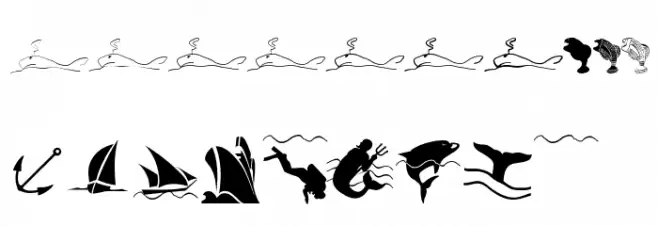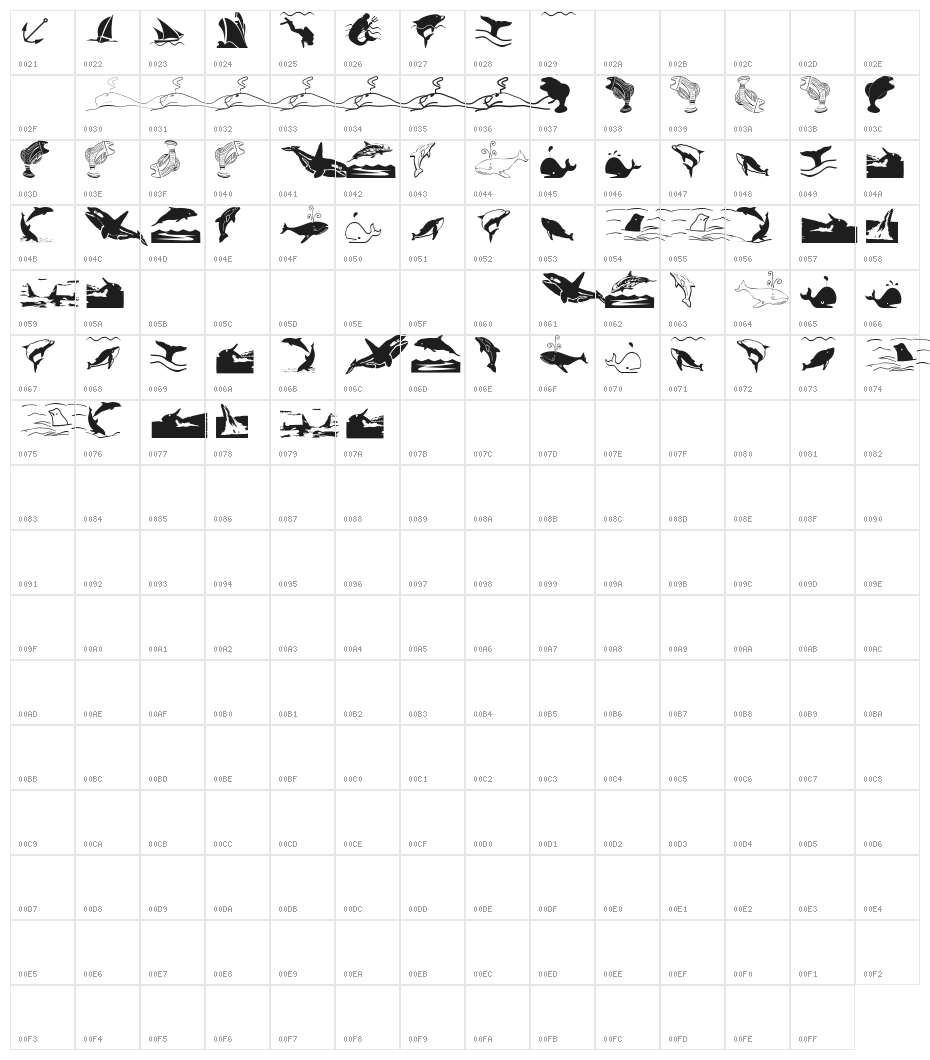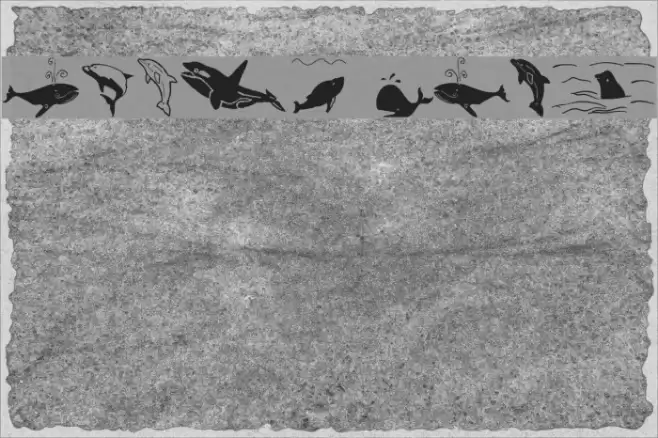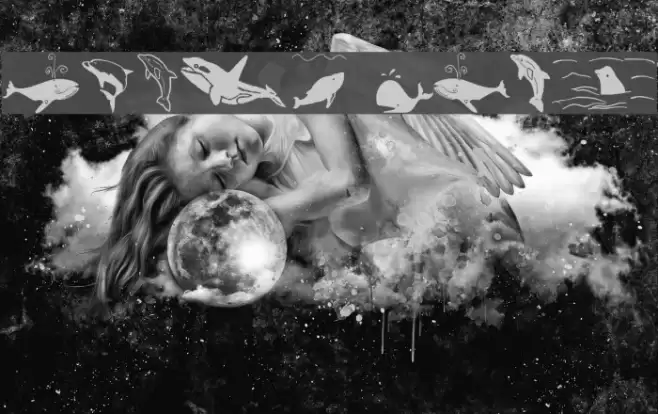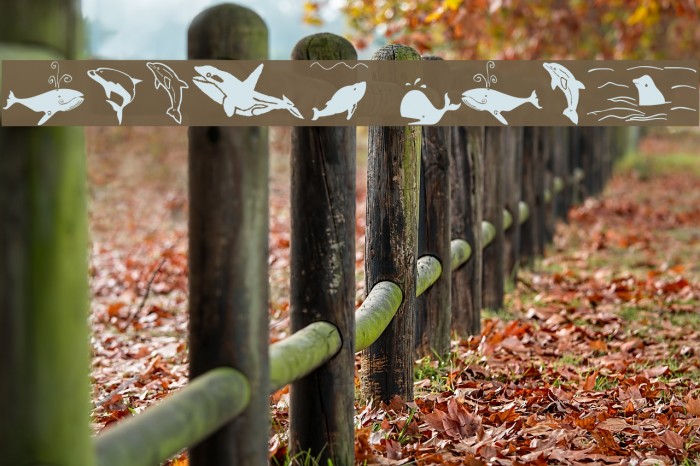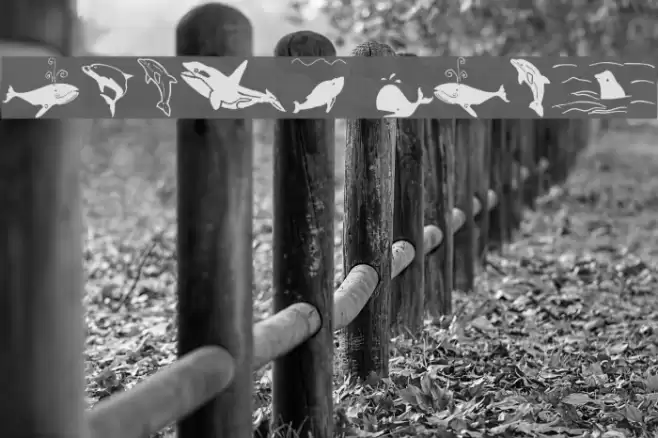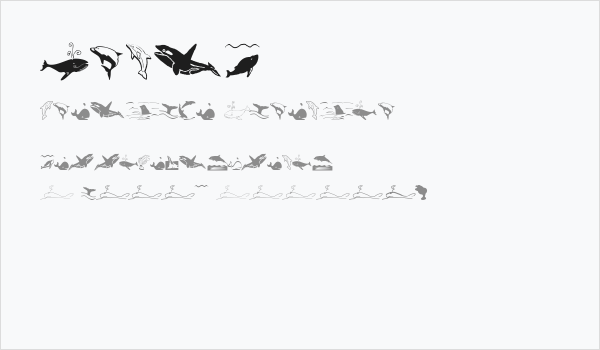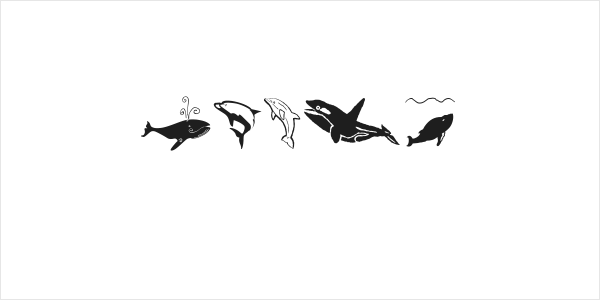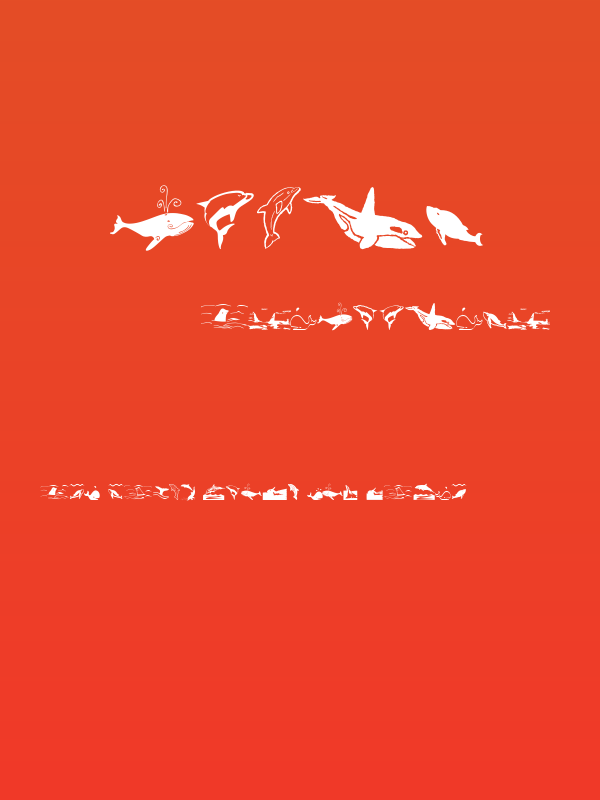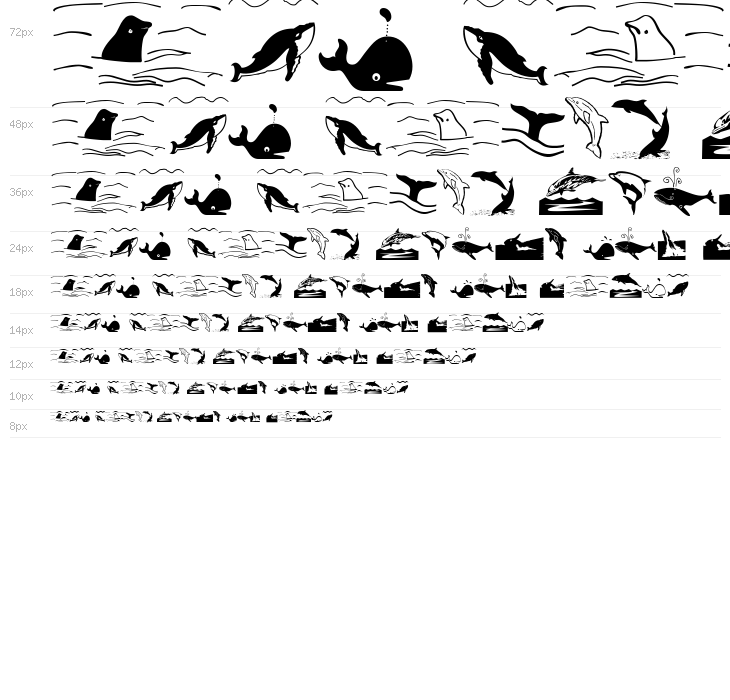
Orcas Font
A decorative dingbat font featuring various marine-themed illustrations, including orcas, dolphins, whales, sailboats, anchors, divers, and ocean waves. Each character is represented by a unique, detailed black-and-white drawing, with some glyphs filled and others outlined.
| Overall Style | Decorative, Playful, Thematic |
| Use Case | Illustrative accents, thematic dividers, visual storytelling, decorative elements. |
| Proposed Projects | ChildrenΓ’β¬β’s books, educational materials, aquarium signage, ocean conservation campaigns, themed party invitations, scrapbooking. |